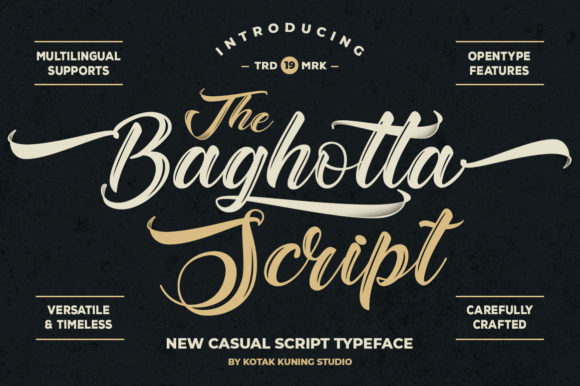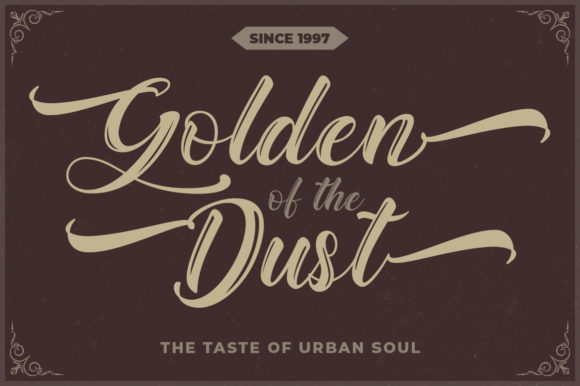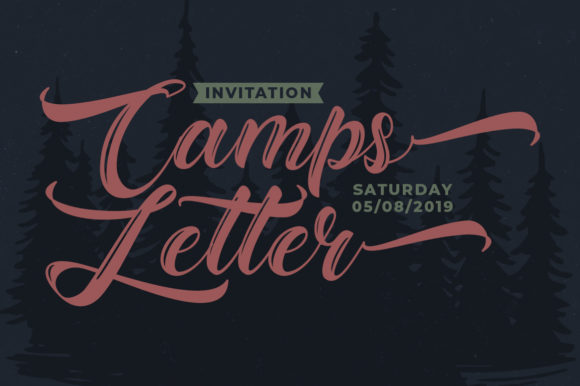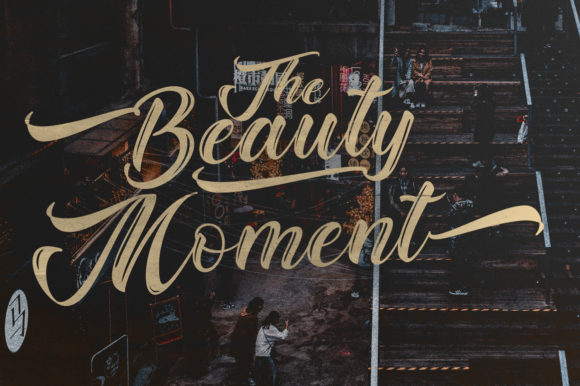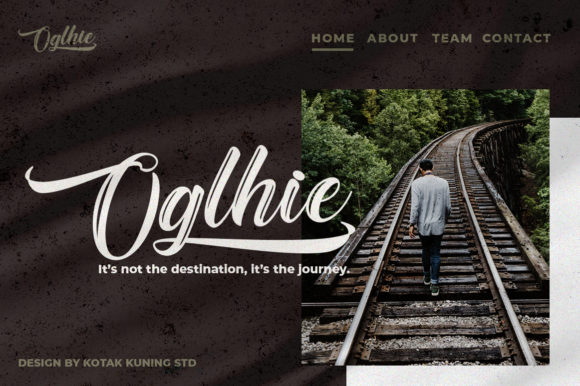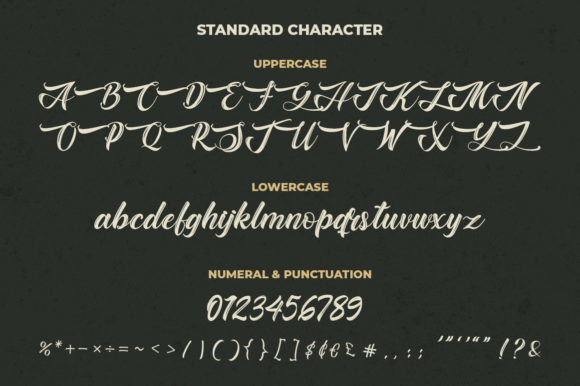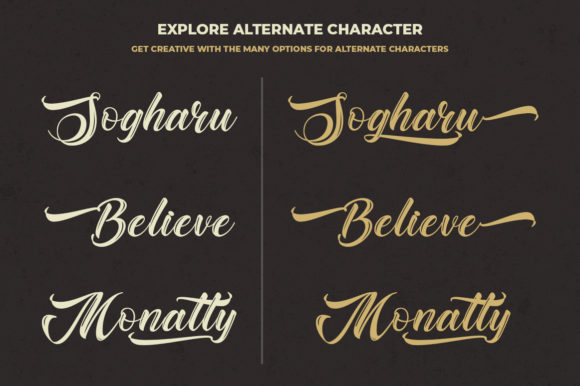
Baghotta Font
About Baghotta Font
Baghotta is a stunning handwritten font with bold swashes. Use it to add a sophisticated touch to any design project!